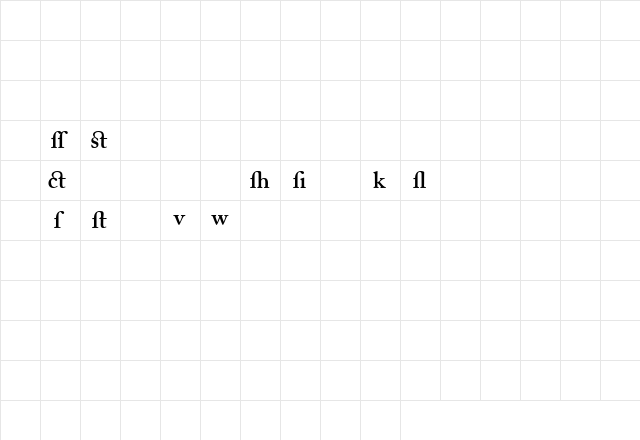
CaslonAlternateSSK SemiBold Font Preview
CaslonAlternateSSK SemiBold
CaslonAlternateSSK SemiBold Font Details
Design Context for CaslonAlternateSSK Typeface
CaslonAlternateSSK is a composed and adaptable typeface that performs quietly and consistently across a wide range of design contexts. Its bold stroke weight gives it real presence on the page.